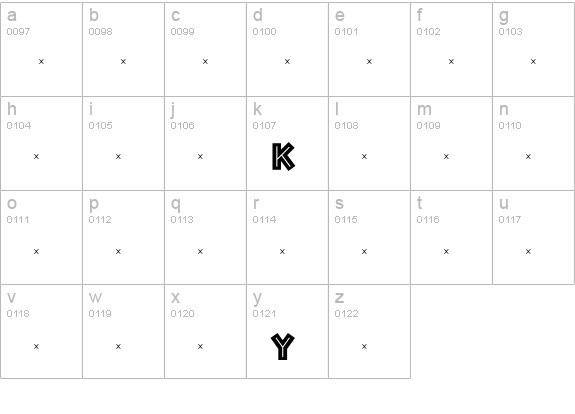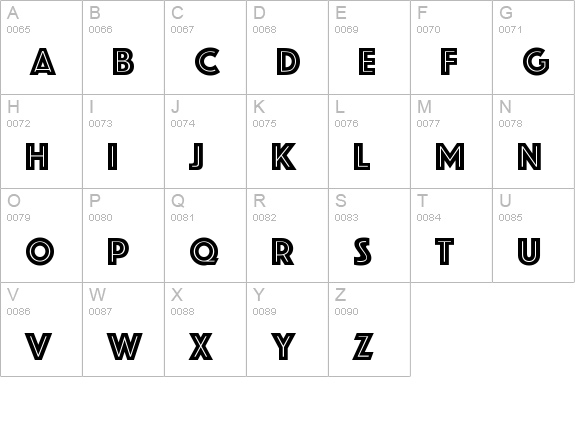
PhosphateInline Font Details
PhosphateInline font is a stunning typeface that exudes elegance and sophistication. Its sleek and modern design captures attention with its unique blend of boldness and finesse. The inline style adds a touch of charm and versatility, making it perfect for a wide range of design projects. This font offers a perfect balance between classic and contemporary, making it suitable for both professional and creative endeavors. Whether it's used for branding, advertising, or editorial purposes, PhosphateInline font effortlessly enhances any composition and brings it to life. One of the most appealing aspects of PhosphateInline font is that it is completely free. Yes, you read it right! This incredible font is freely available to download at FontsMarket.com. Now you can add a touch of sophistication to your designs without breaking the bank. With its wide range of characters and ligatures, PhosphateInline font allows for endless creative possibilities. Its clean and precise lines make it a versatile choice for both large headlines and small body text. The attention to detail in every letterform is evident, ensuring an impeccable reading experience. Whether you're a seasoned designer or just starting out, PhosphateInline font is a must-have in your font collection. Its timeless appeal and versatility will surely make it a go-to choice for all your design needs. So why wait? Head over to FontsMarket.com and download this amazing font for free today!